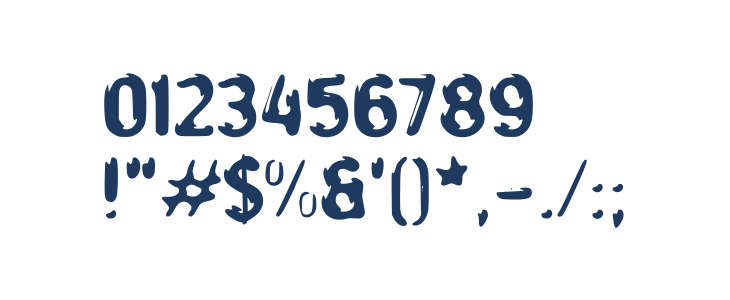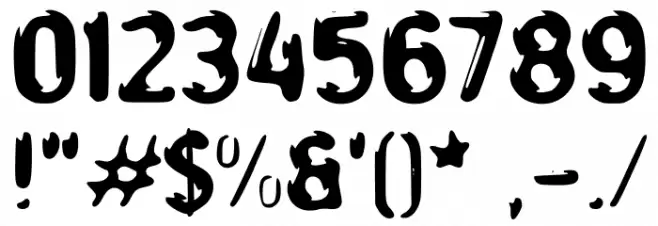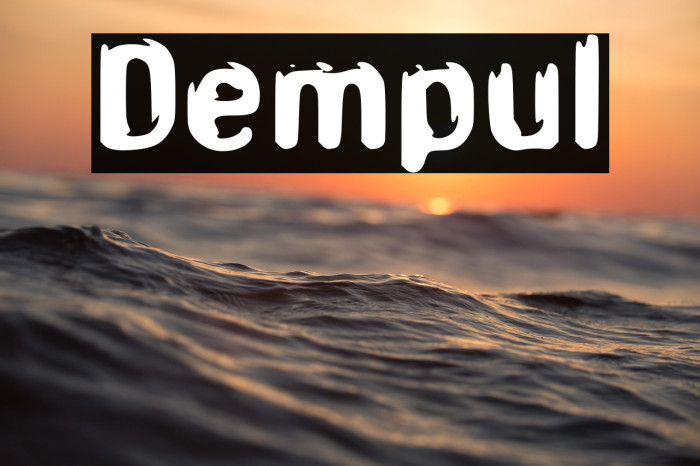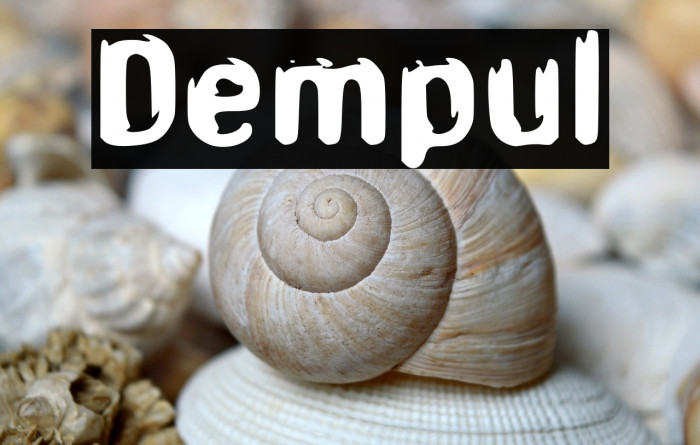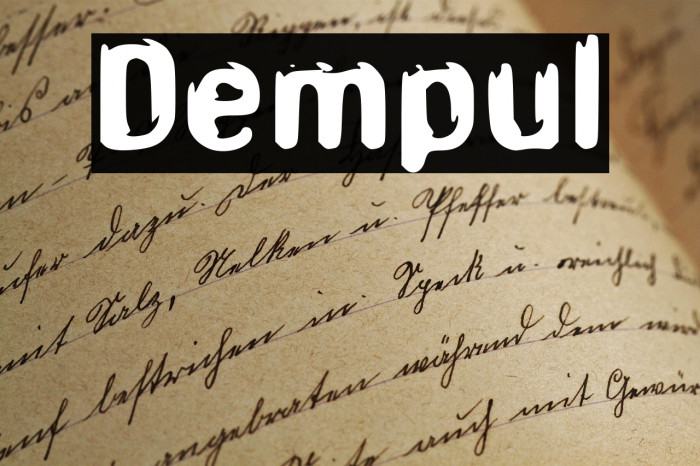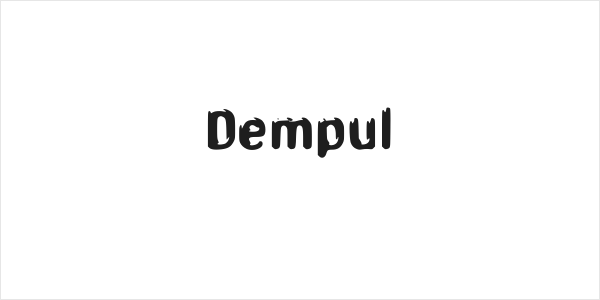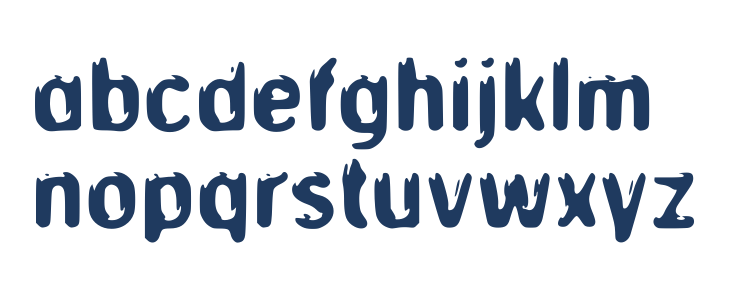
Dempul Font
Dempul Description
This font features a bold and expressive style with a hand-painted appearance. The characters are thick and slightly irregular, giving it a dynamic and artistic feel. The strokes are uneven, adding to its organic and spontaneous look. The font maintains a consistent weight throughout, with rounded edges that soften the overall appearance. It is highly legible despite its decorative nature, making it suitable for impactful designs. The uppercase and lowercase letters are well-balanced, and the numerals and special characters complement the alphabet with the same artistic flair.
| Overall Style | Artistic, Expressive |
| Proposed Projects | Ideal for posters, album covers, branding, and any project requiring a bold, artistic touch. |